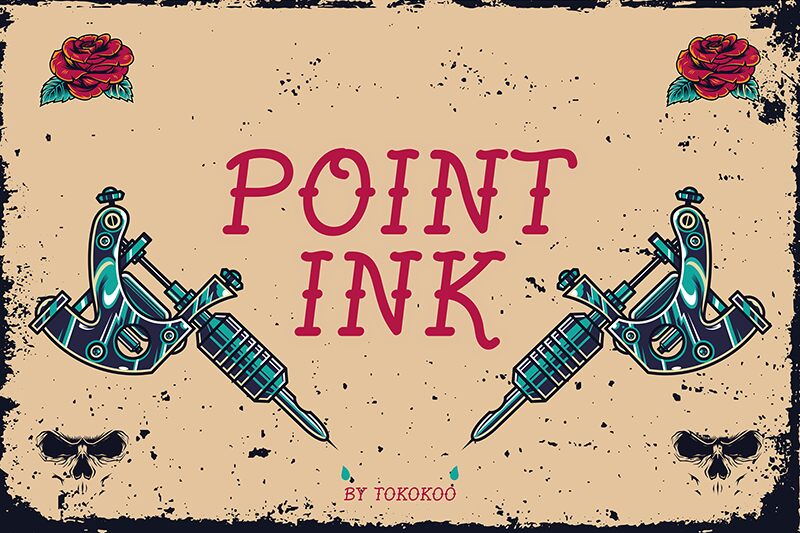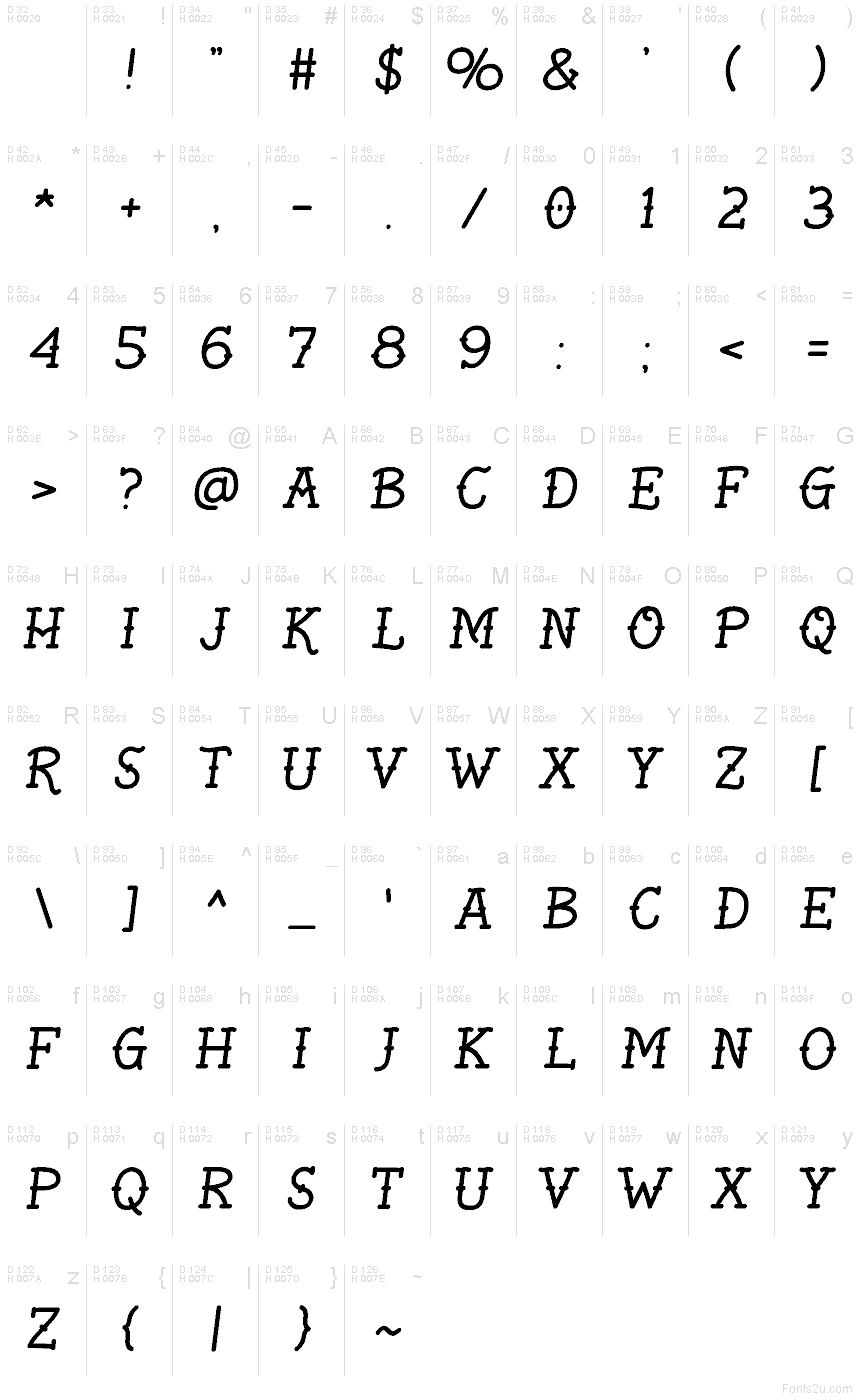
Pointink font by Tokokoo Studio is a free retro display typeface. Its inky, stippled strokes and softly rounded serifs give each letter a hand-pressed feel-like fresh ink kissing textured paper. There’s a gentle sway in the forms that adds bounce without getting messy, so headlines feel lively and legible in one breath.
Using Pointink, you get that nostalgic sign-painter charm for posters, café menus, craft packaging, retro logos, event flyers, social graphics, and merch. The slightly irregular rhythm pulls the eye through a line, making short phrases pop. Set it big to show off the grainy ink texture, and pair with a clean geometric sans for body copy to keep layouts crisp. This free font shines where personality matters.